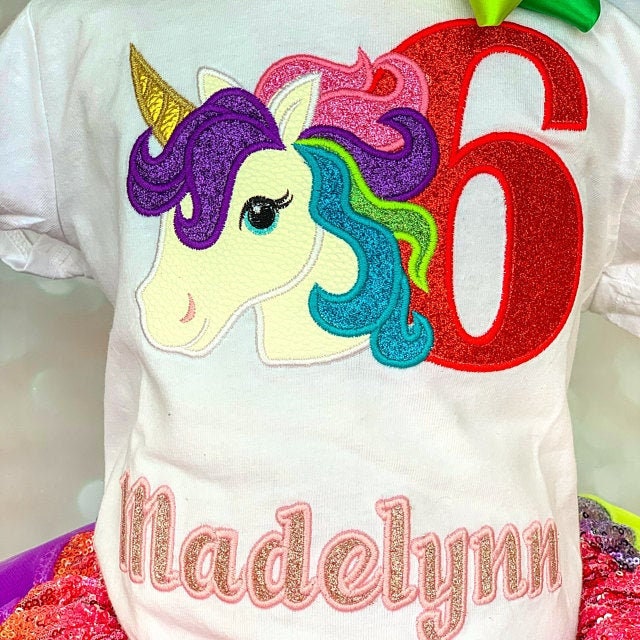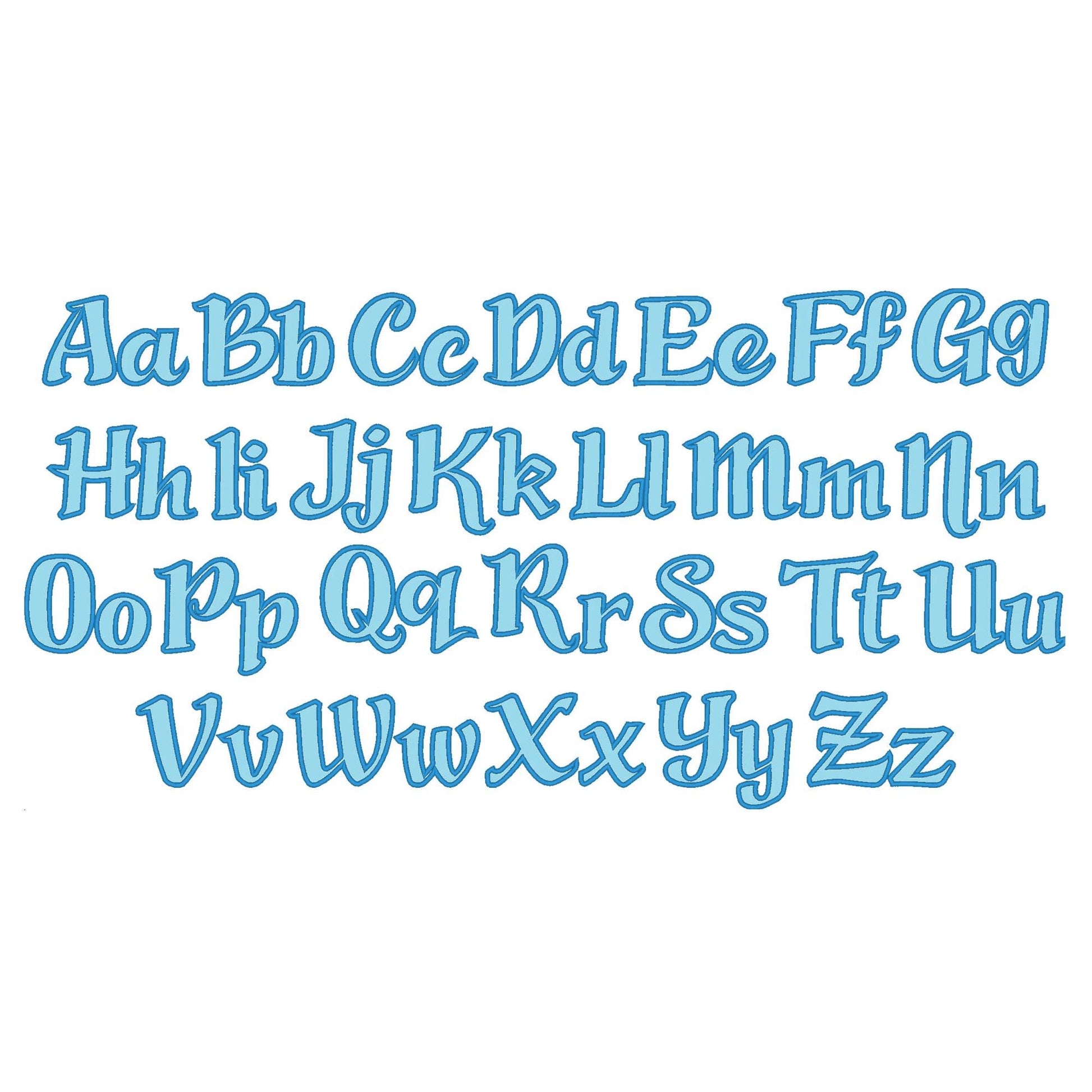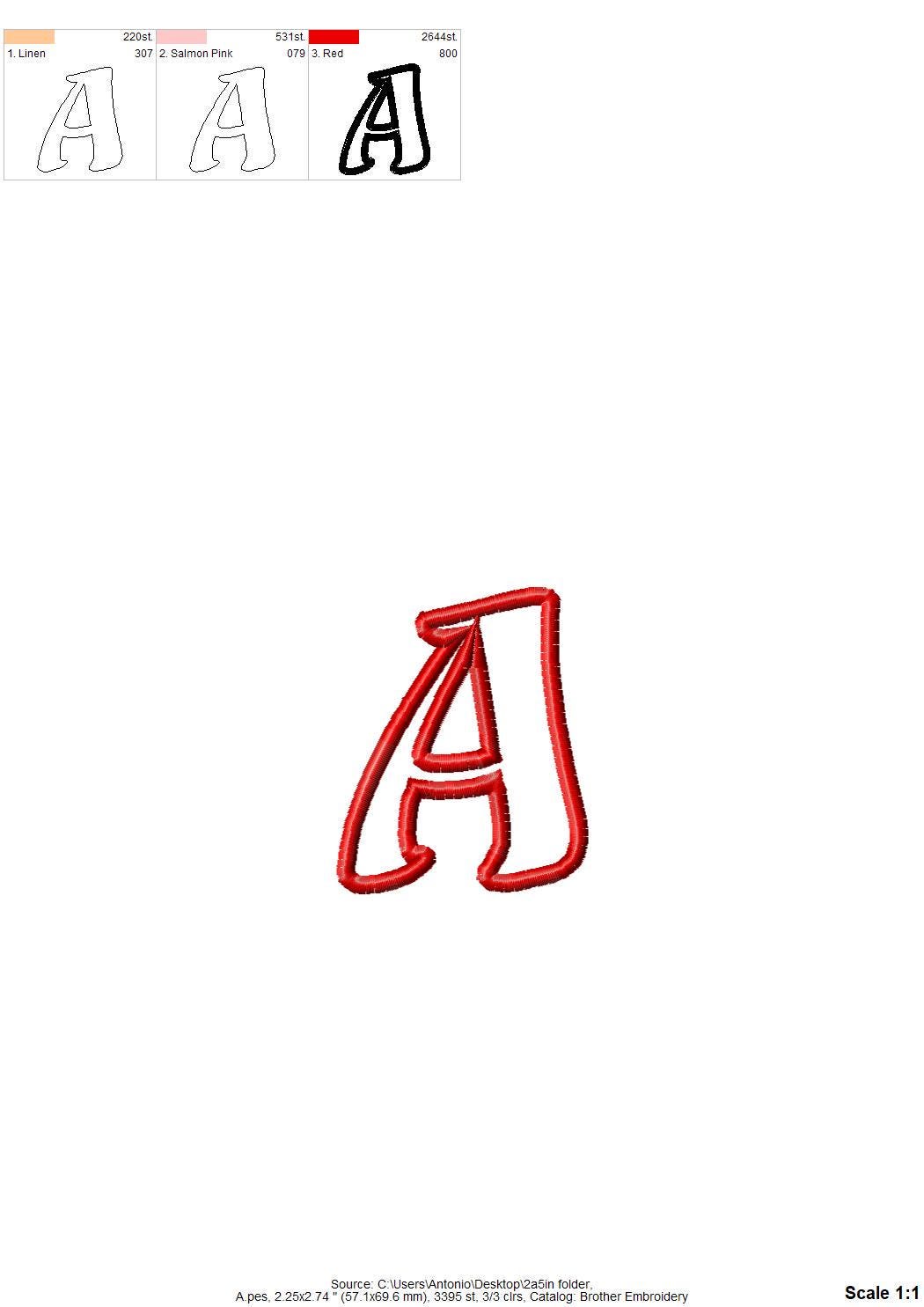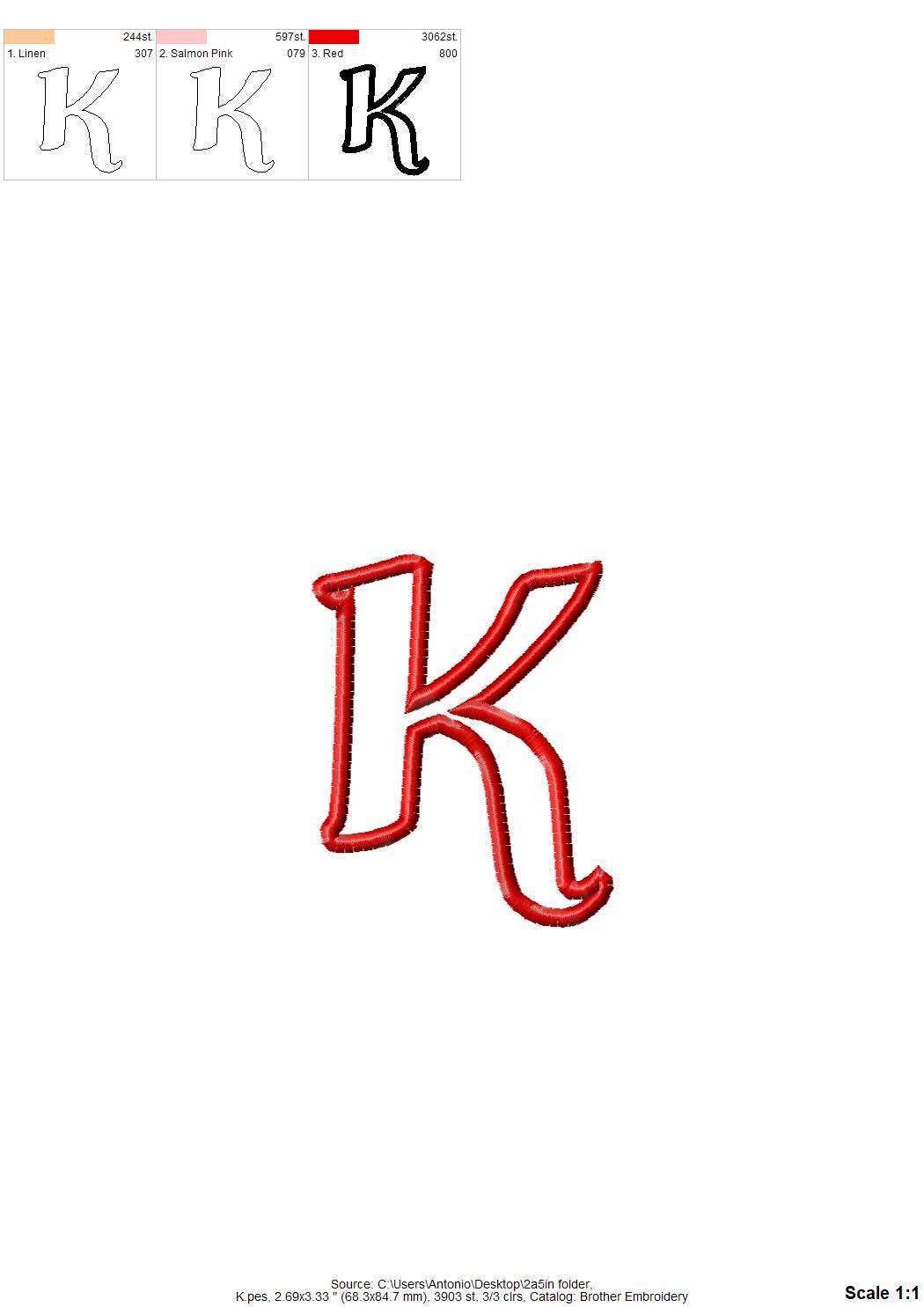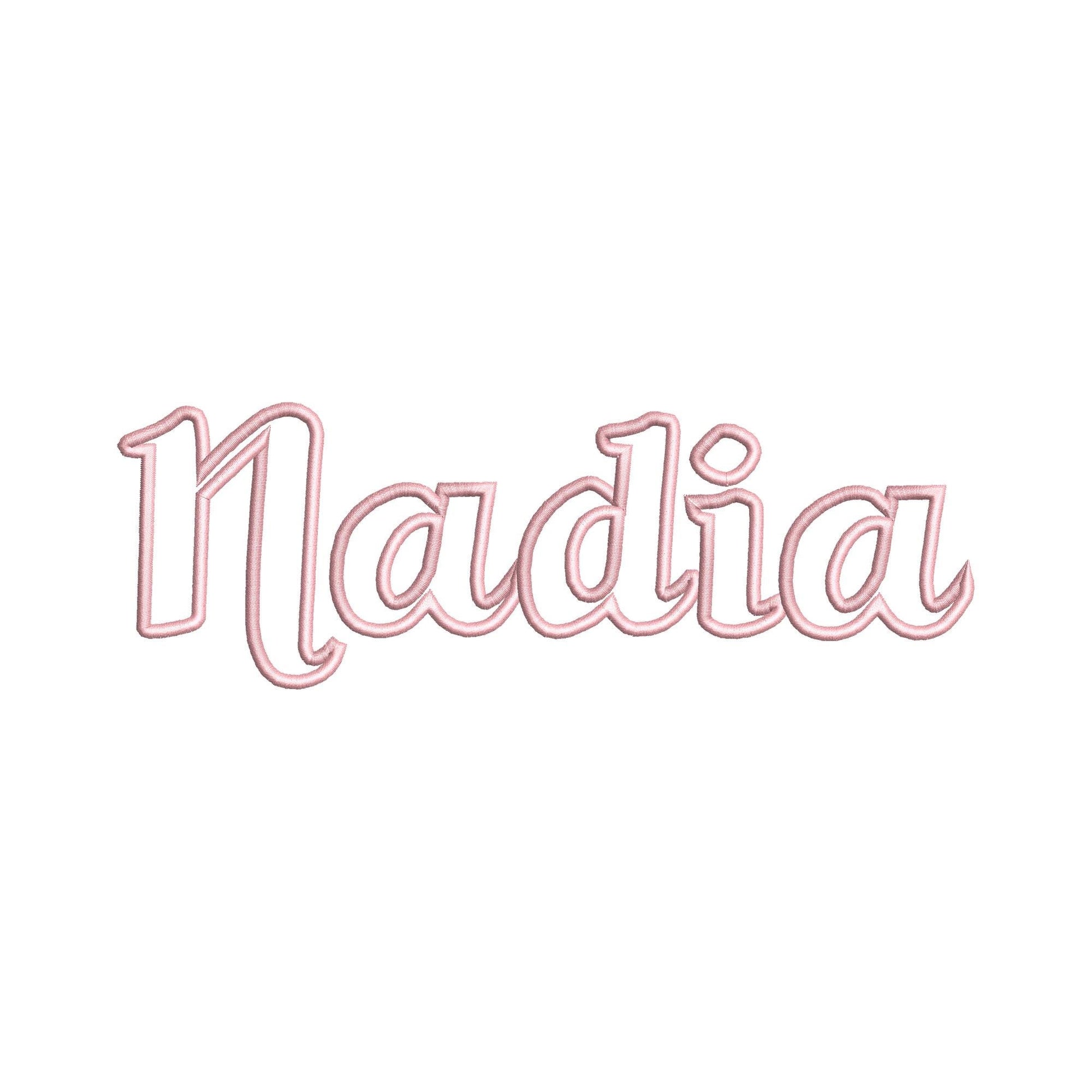
Or click to open the linkA friendly applique monogram font for kids' names and initials. Great on girls' and boys' shirts, bags, blankets and pillows.
Uppercase and lowercase applique letters in five sizes: 1.9, 2.3, 2.7, 3.4 and 4.2 inches.